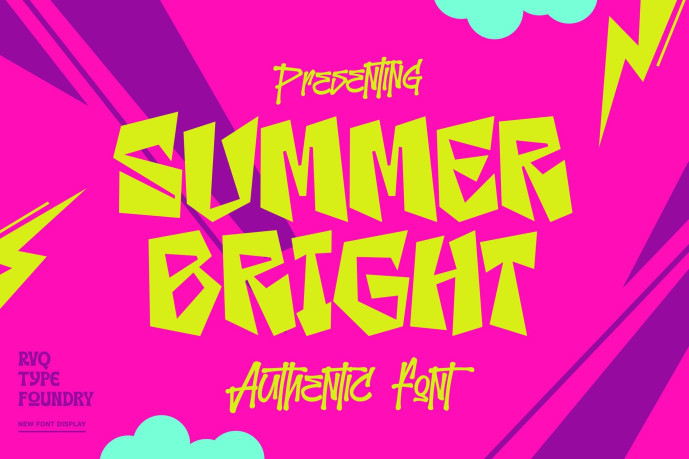
The Summer Bright Font
Designer: RVQ
The Summer Bright Font is a cool, graffiti-style display font. Stylish and trendy, this font is suitable for a large variety of projects that need an urban-inspired accent.
The Summer Bright font is suitable font for many creative products Design and easy use.